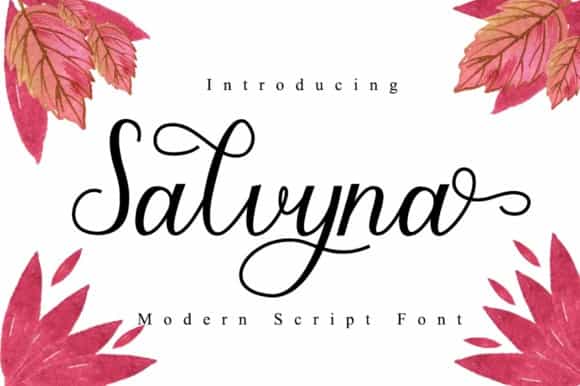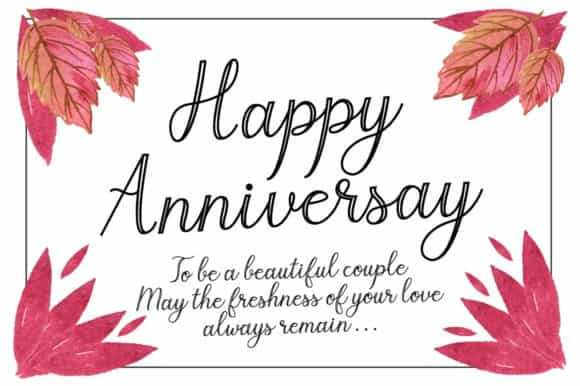
Discover Salvyna Font, part of the Commercial Calligraphy collection—a versatile and unique font perfect for adding a personal touch to your projects. Download it for free and enjoy crafting designs with style, from invitations to social media posts. This font is available exclusively for personal use, giving you the freedom to create without limits. Unlock your creativity with Salvyna Font today!
Here is the Salvyna Font, its beauty lies in its simplicity. For those of you who are in a need of some elegance and modernity for your designs, this font was made for you! This font is the most suitable for a program that can handle OpenType features like Adobe Indesign, Adobe Illustrator CS or Adobe Photoshop CC.